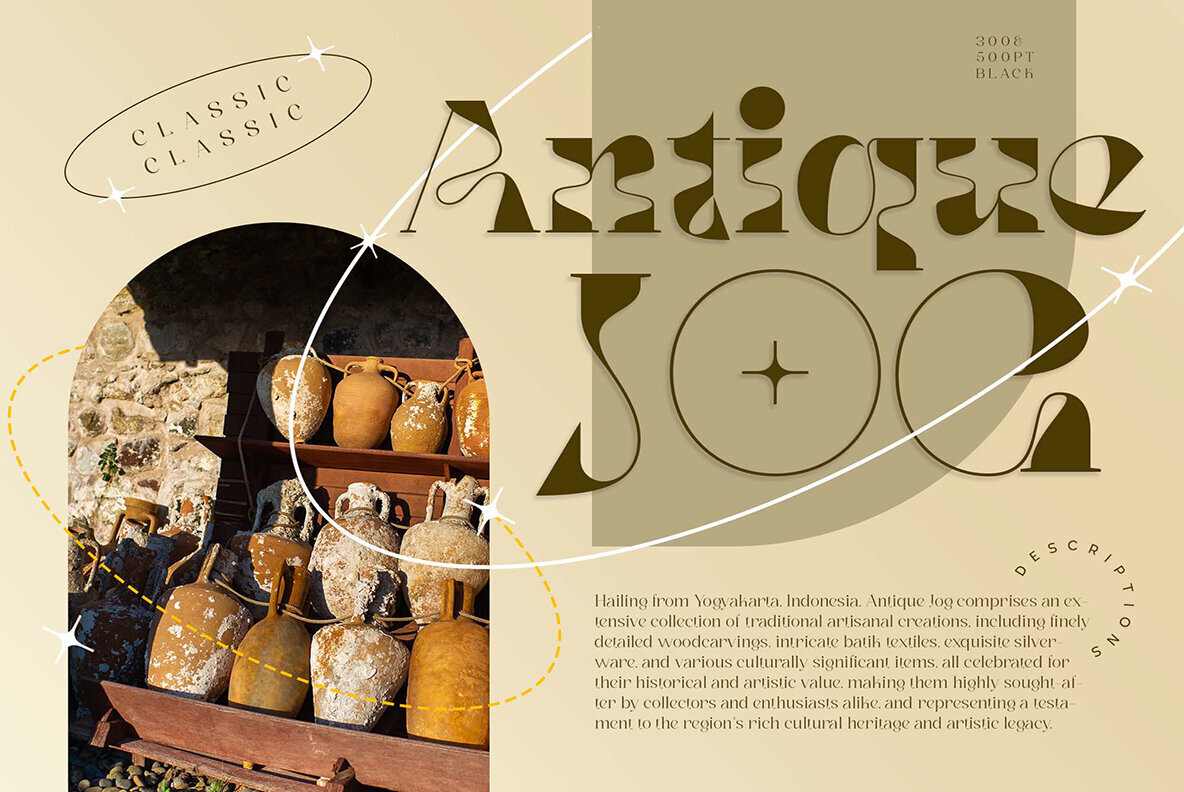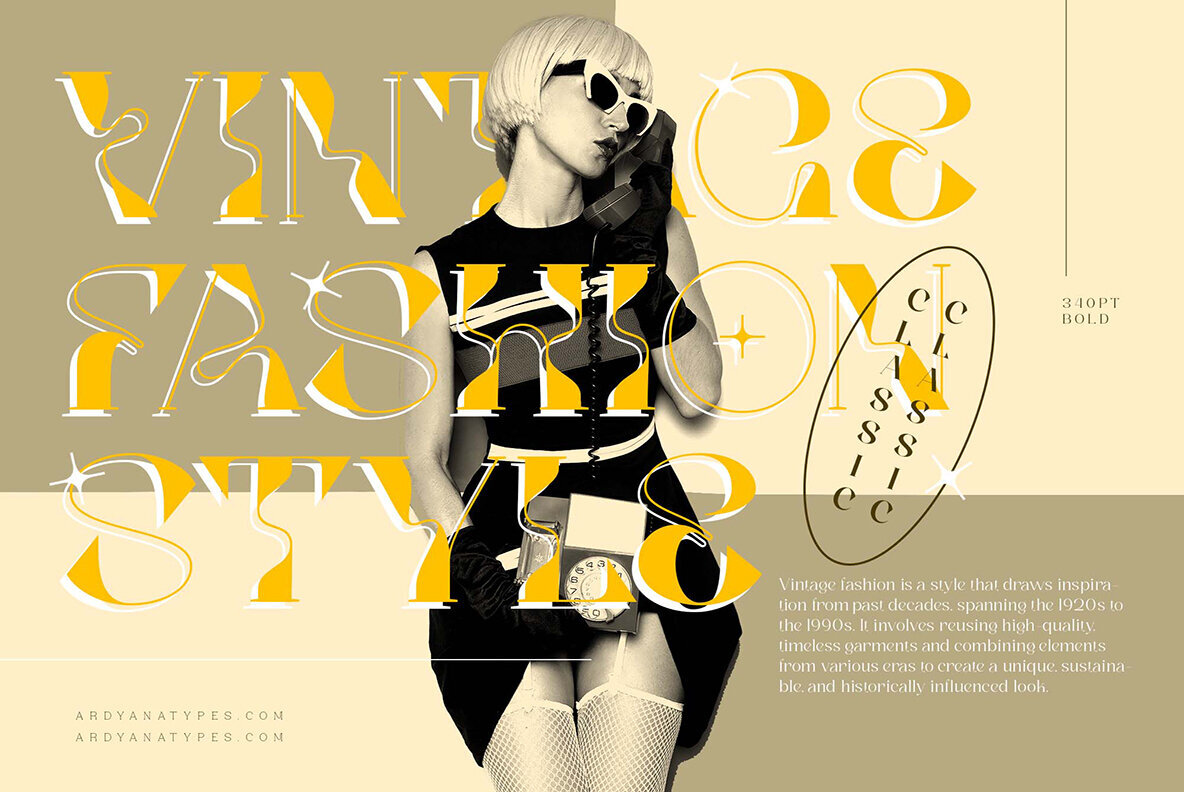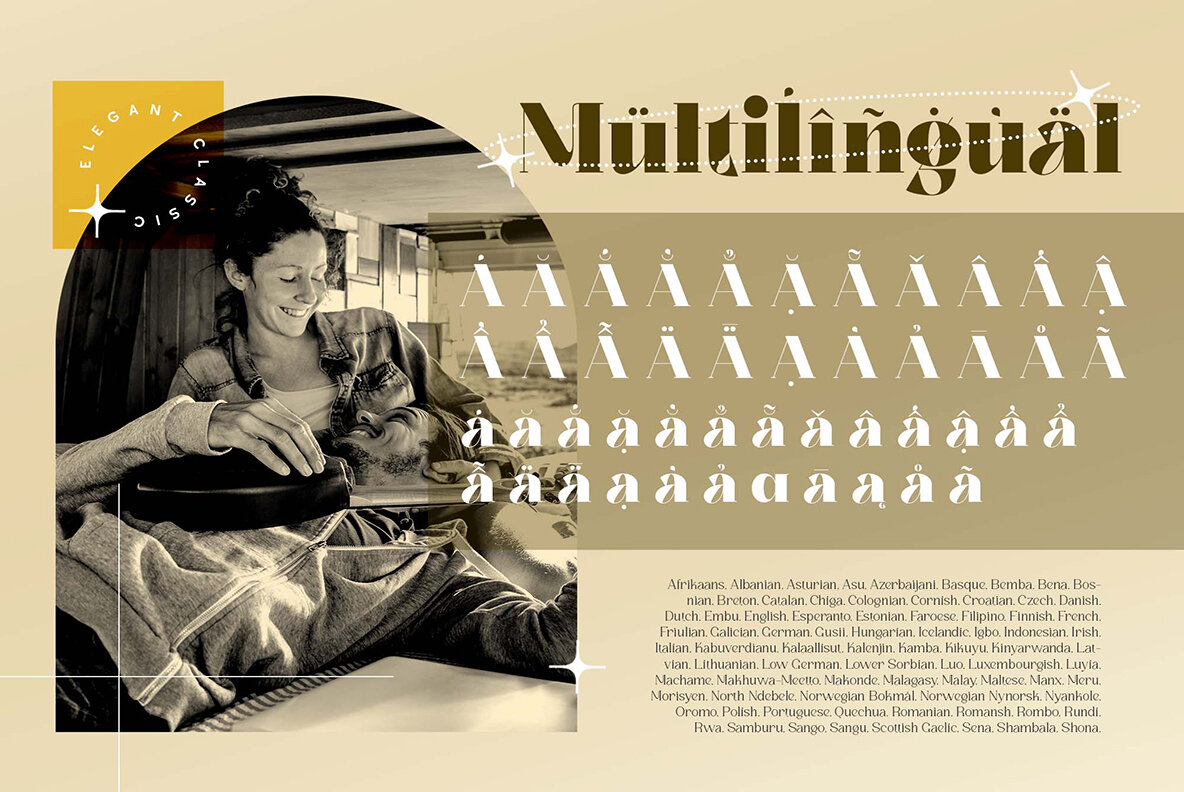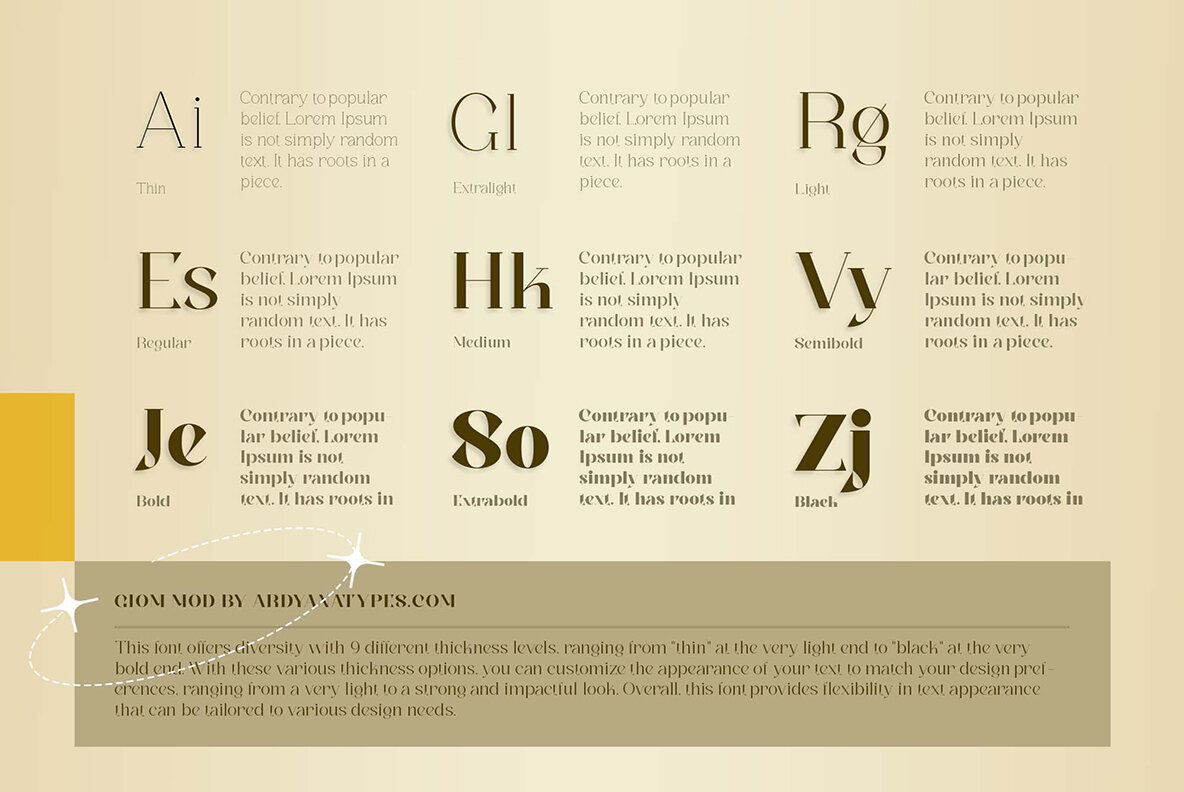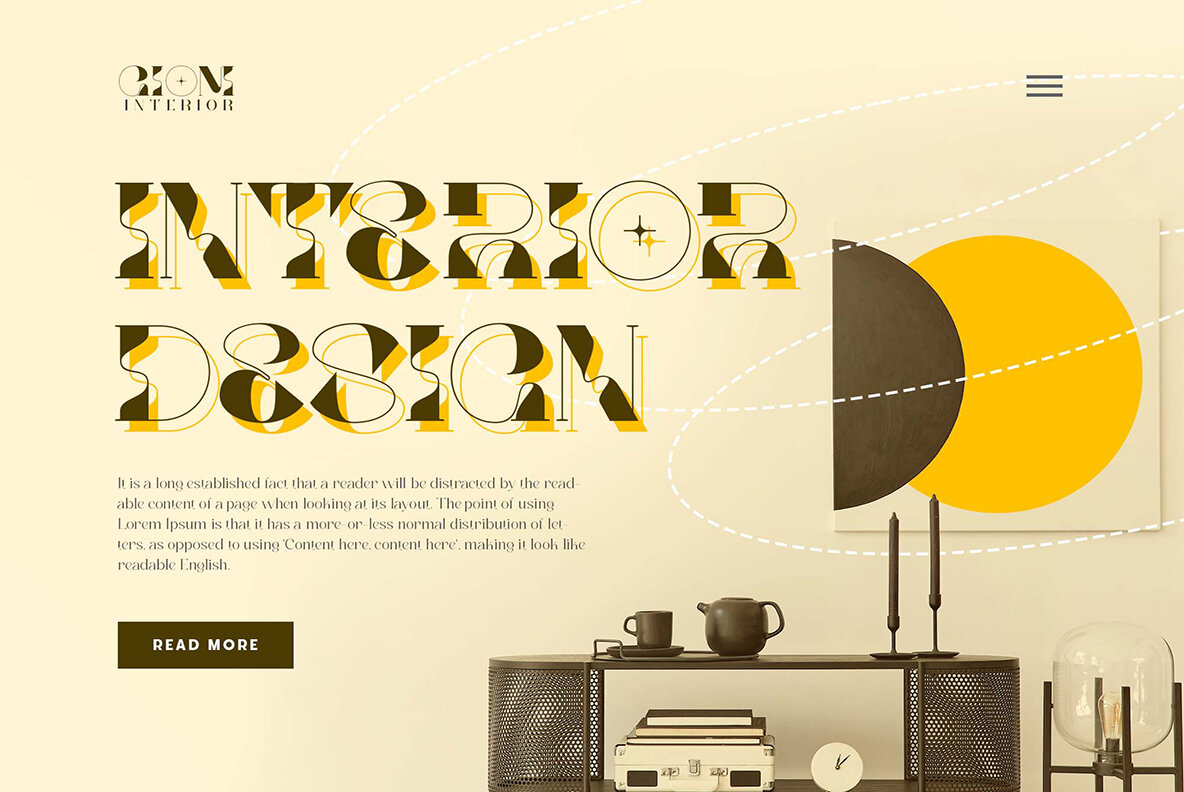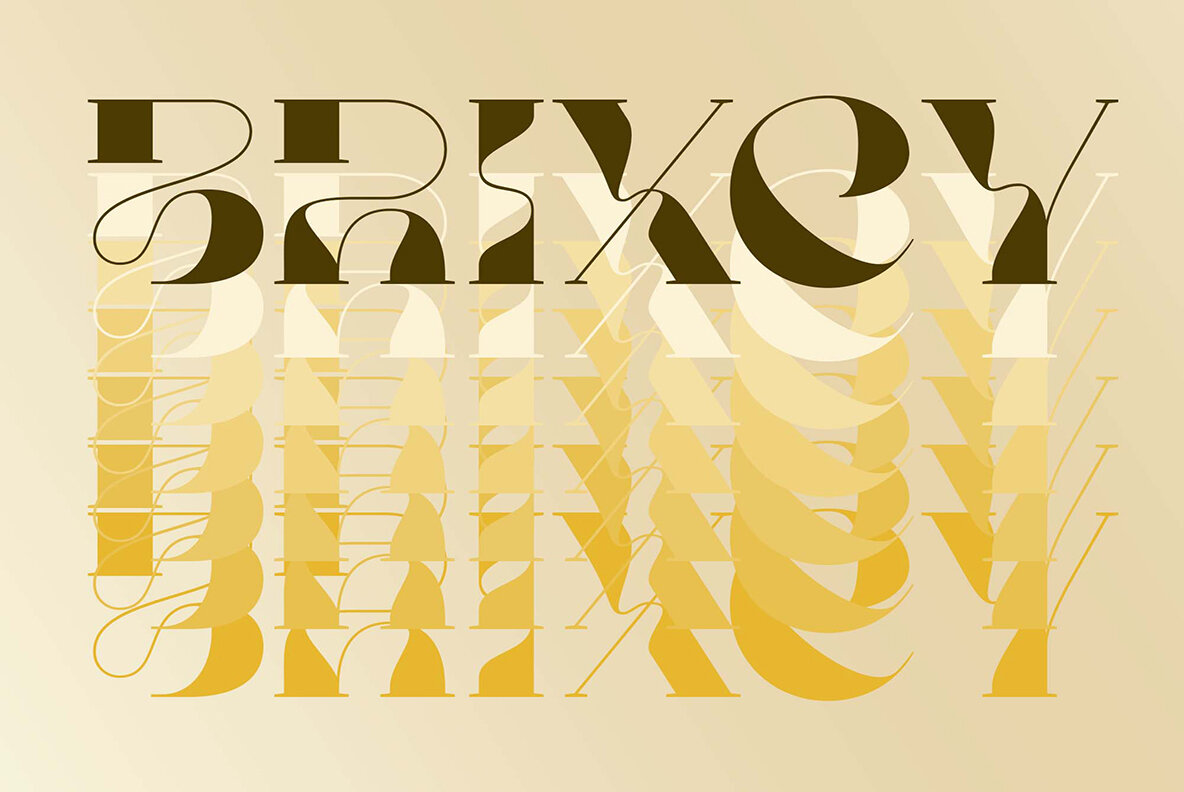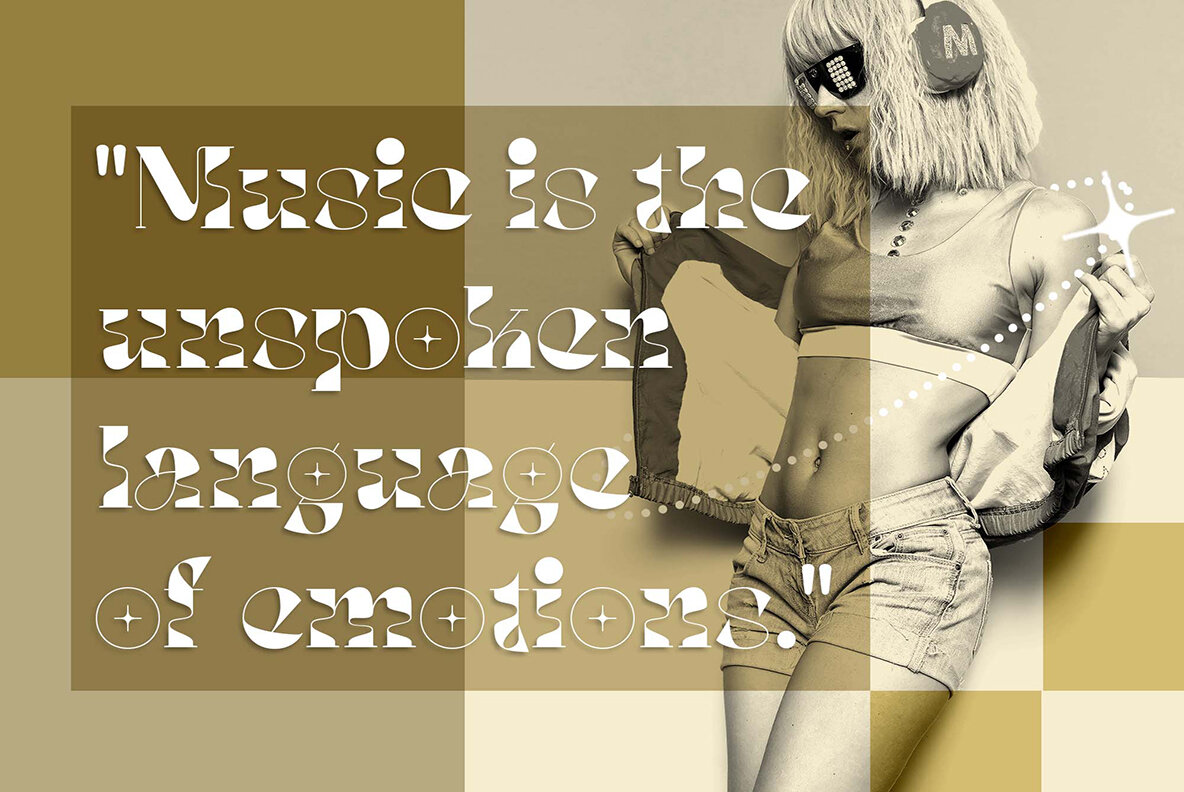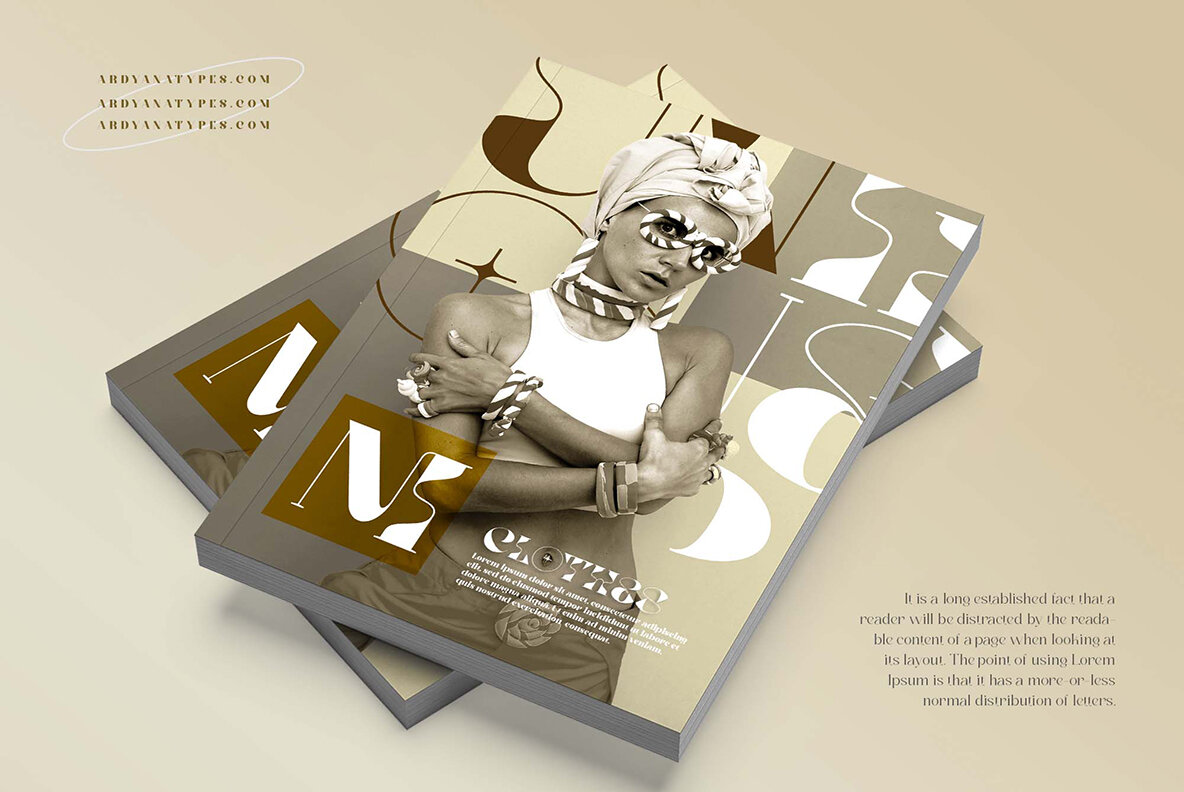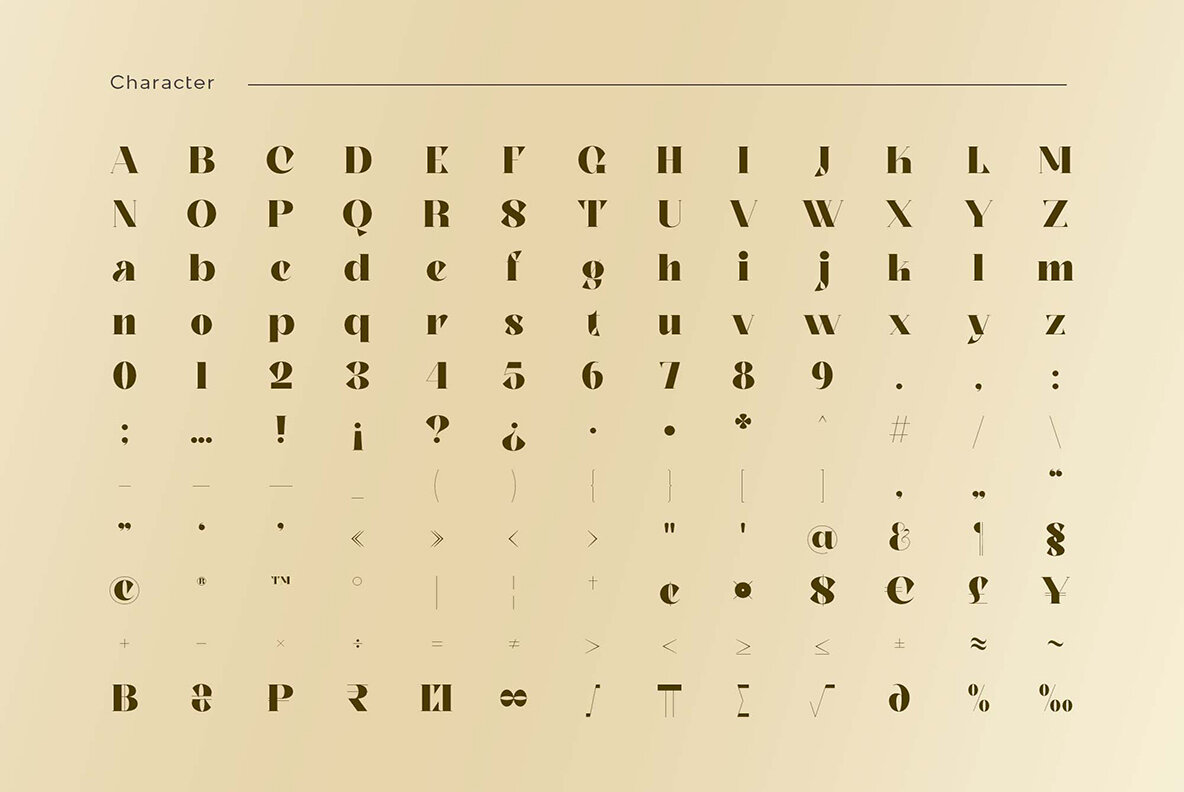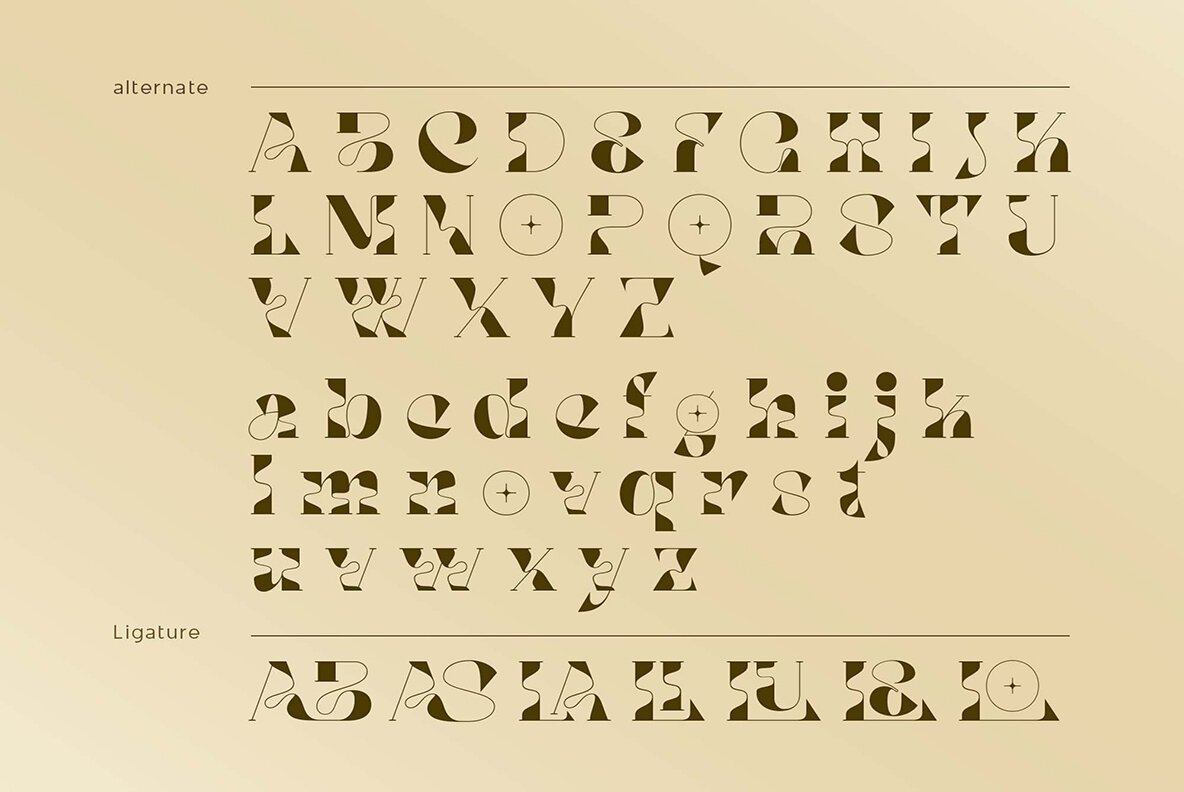
Giom Mod Font
expand_font Giom Mod Font Discover the elegant versatility of Giom Mod, a unique display font with nine thickness options. Enhance your designs with beautiful ligatures a... SKU T21652 Retro,Chic,Classy,Serif,Fashion,Bold Explore Exceptional Fonts for Digital and Traditional Media Fontpath offers a large variety of fonts for every designer, all at affordable prices and in multiple formats. Browse our best in class fonts today for all your creative needs, you can find everything you need right here at our site! Fonts,sans,sans serif,retro,script,decorative,title,FontPath 20140312040223 Fontpath offers 200,000+ of the most professional fonts found online, start downloading today! Real-Time Font Discovery at Fontpath